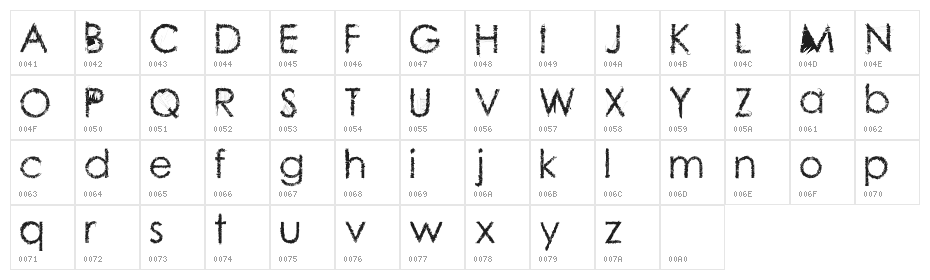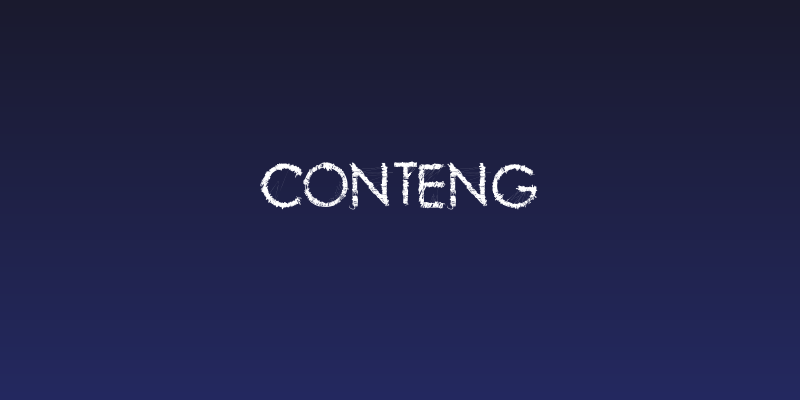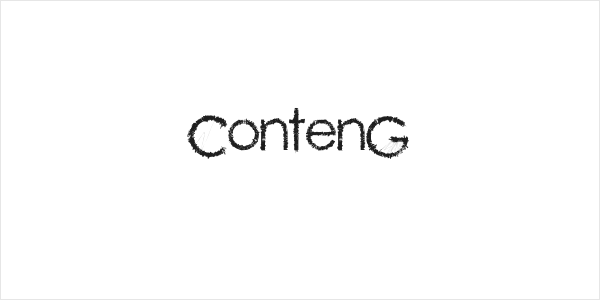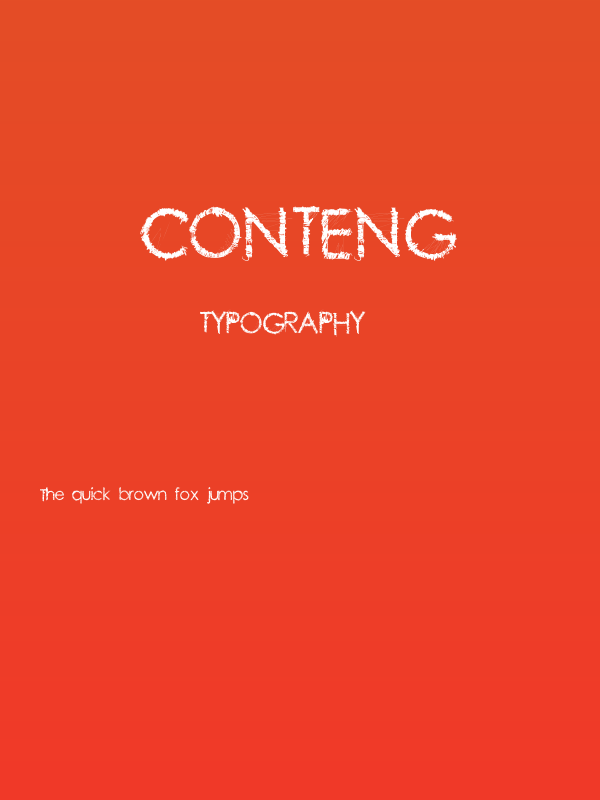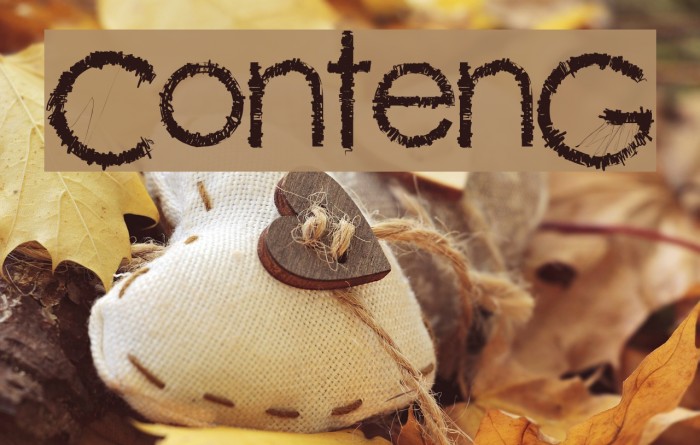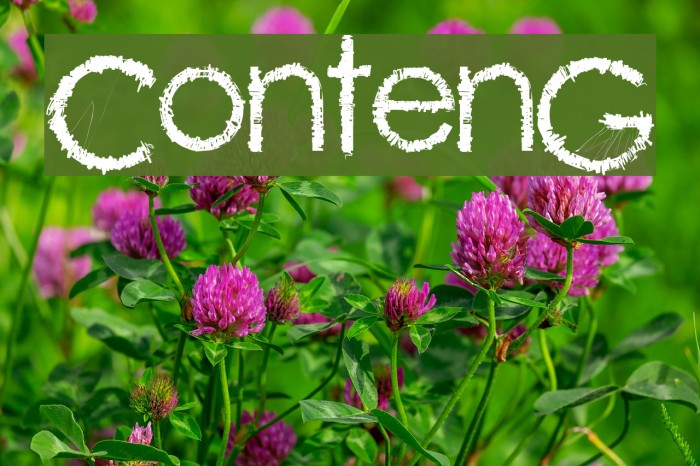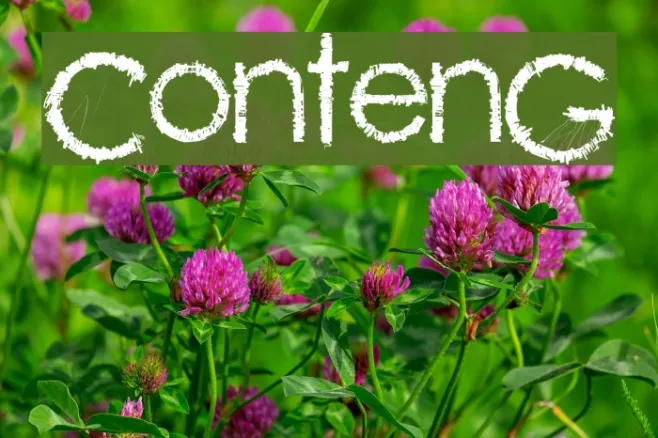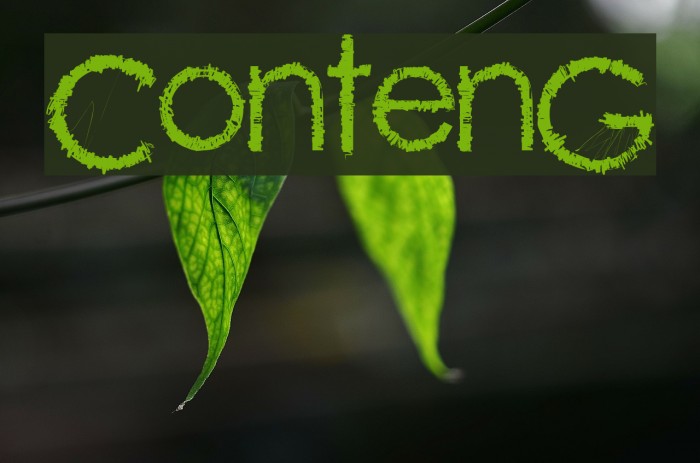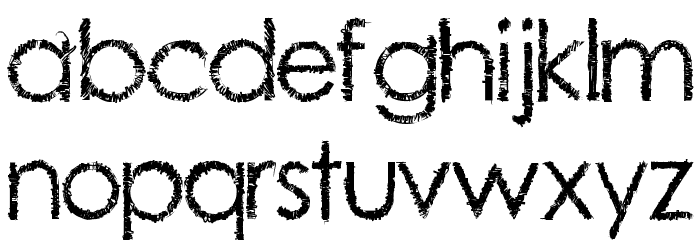
ContenG Font
ContenG Description
This font features a unique, distressed texture that gives it a rugged and edgy appearance. Each letter is crafted with a rough, hand-drawn style, creating an organic and dynamic look. The uppercase and lowercase letters maintain a consistent height and width, ensuring readability despite the textured design. The numerals and special characters follow the same aesthetic, making the font versatile for various creative applications. Its distinctive style is perfect for projects that require a bold statement or an artistic touch.
| Proposed Projects | Ideal for album covers, posters, branding for edgy or artistic products, and creative social media graphics. |